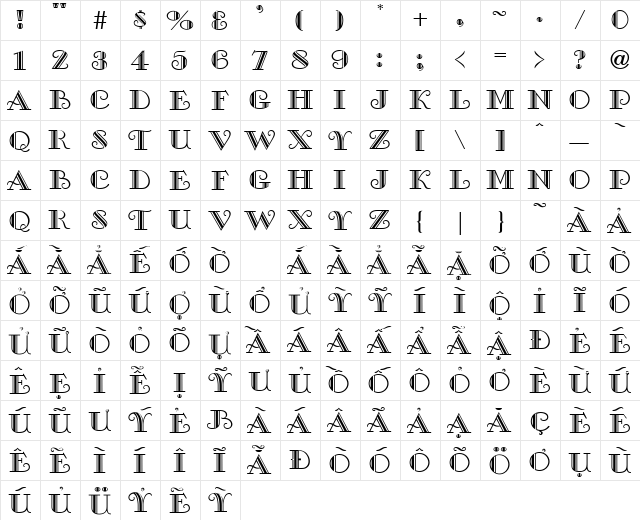
VPS Phu Quoc Hoa Regular
Design Context for VPS Phu Quoc Hoa Typeface
VPS Phu Quoc Hoa is a composed and adaptable typeface that performs quietly and consistently across a wide range of design contexts.